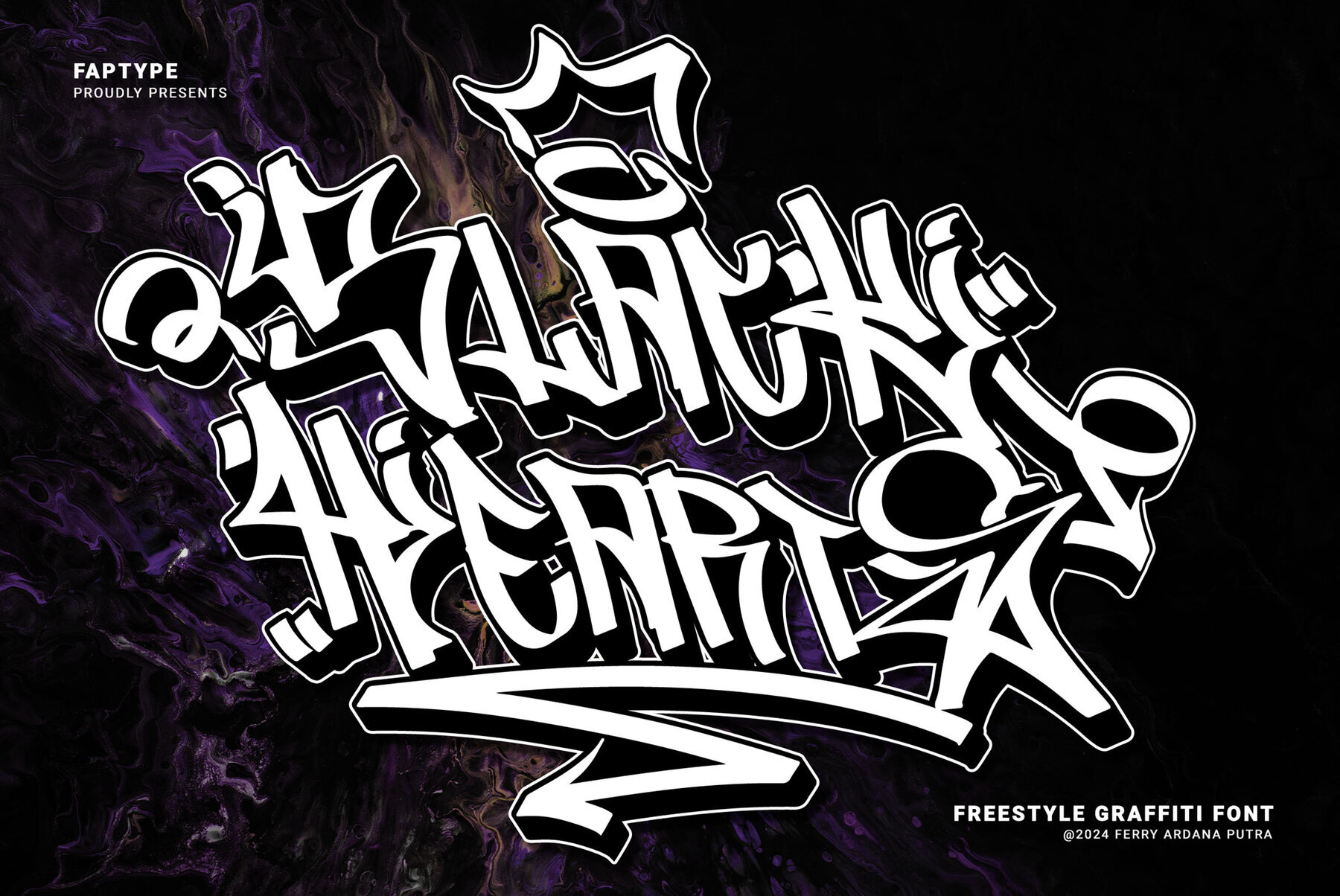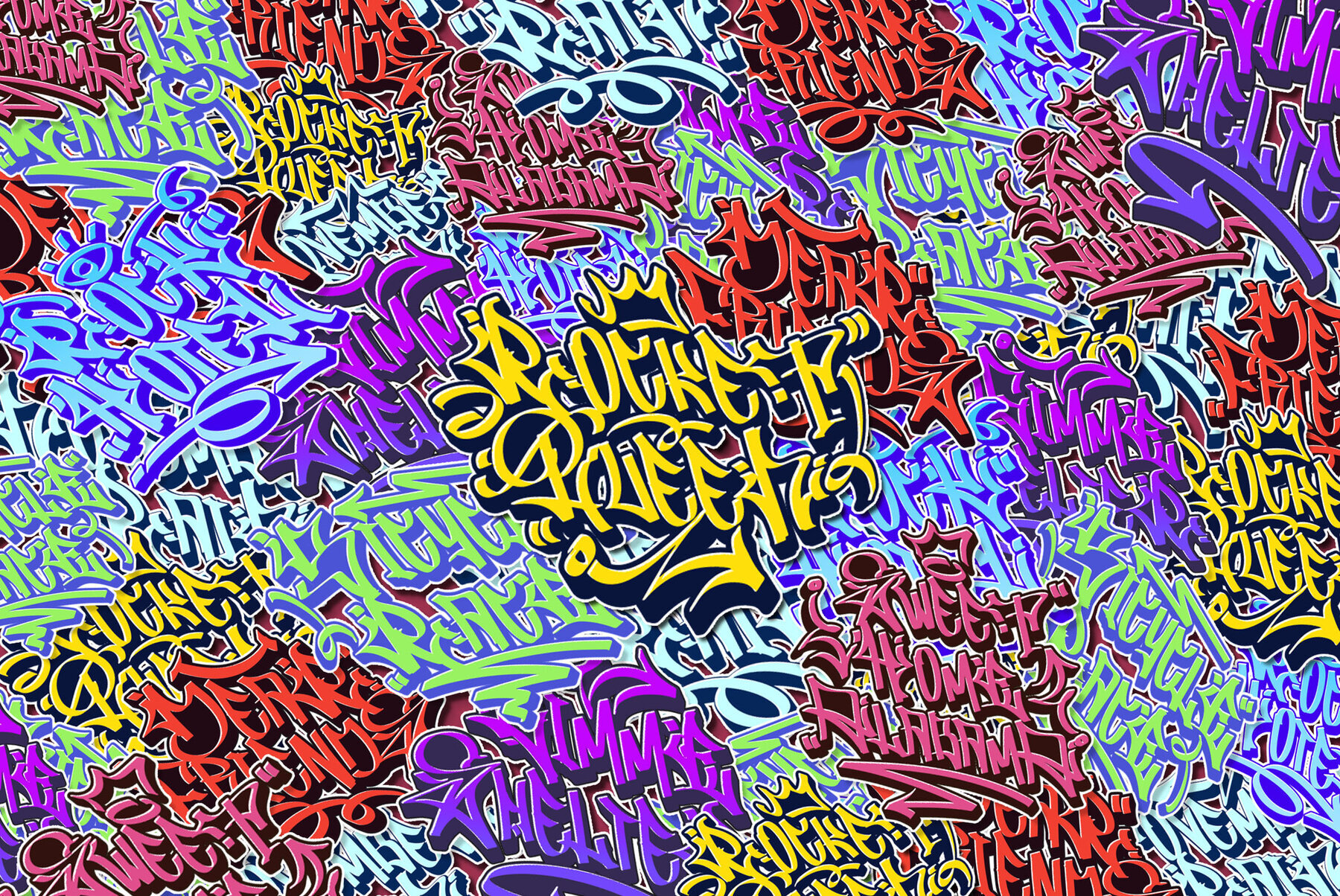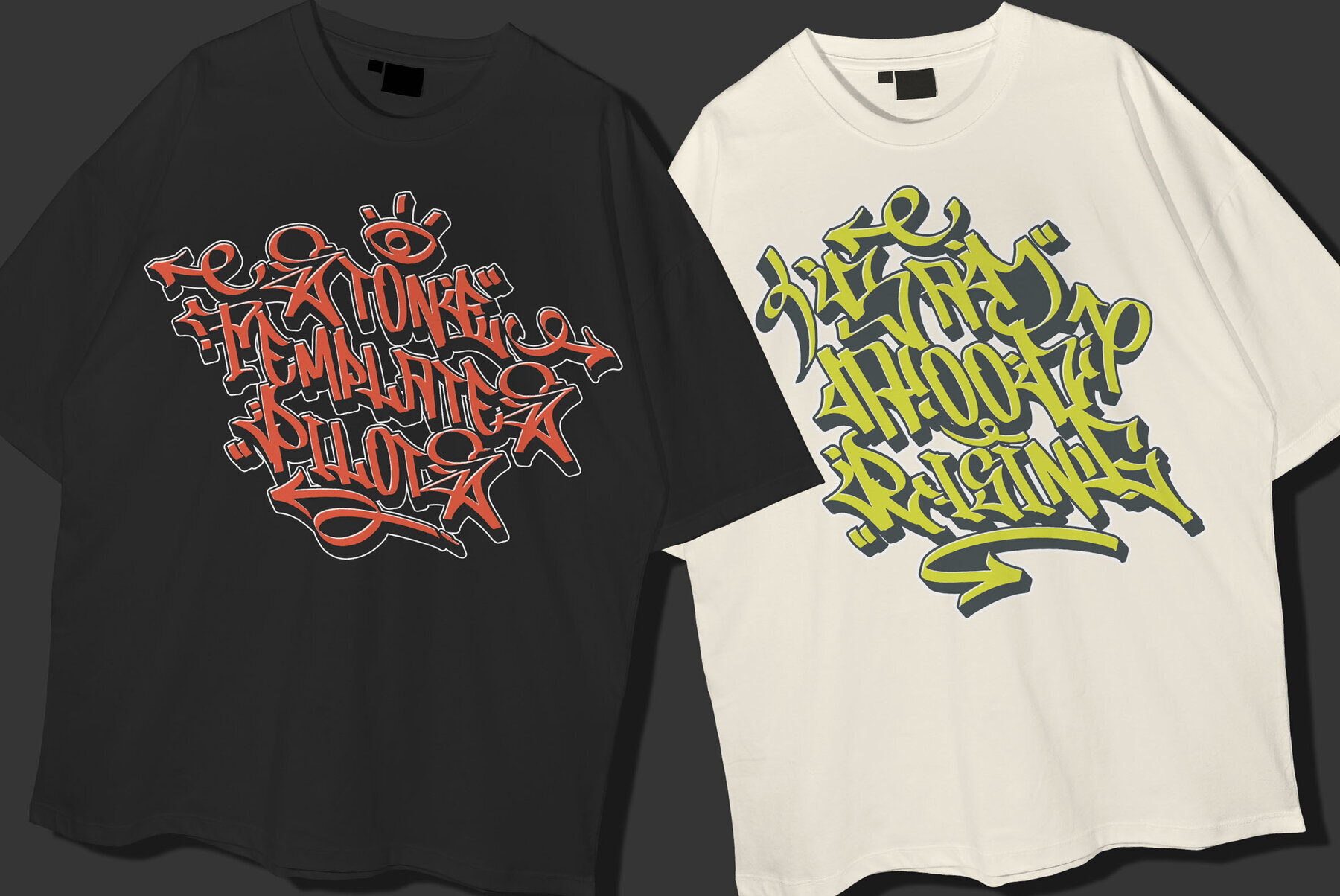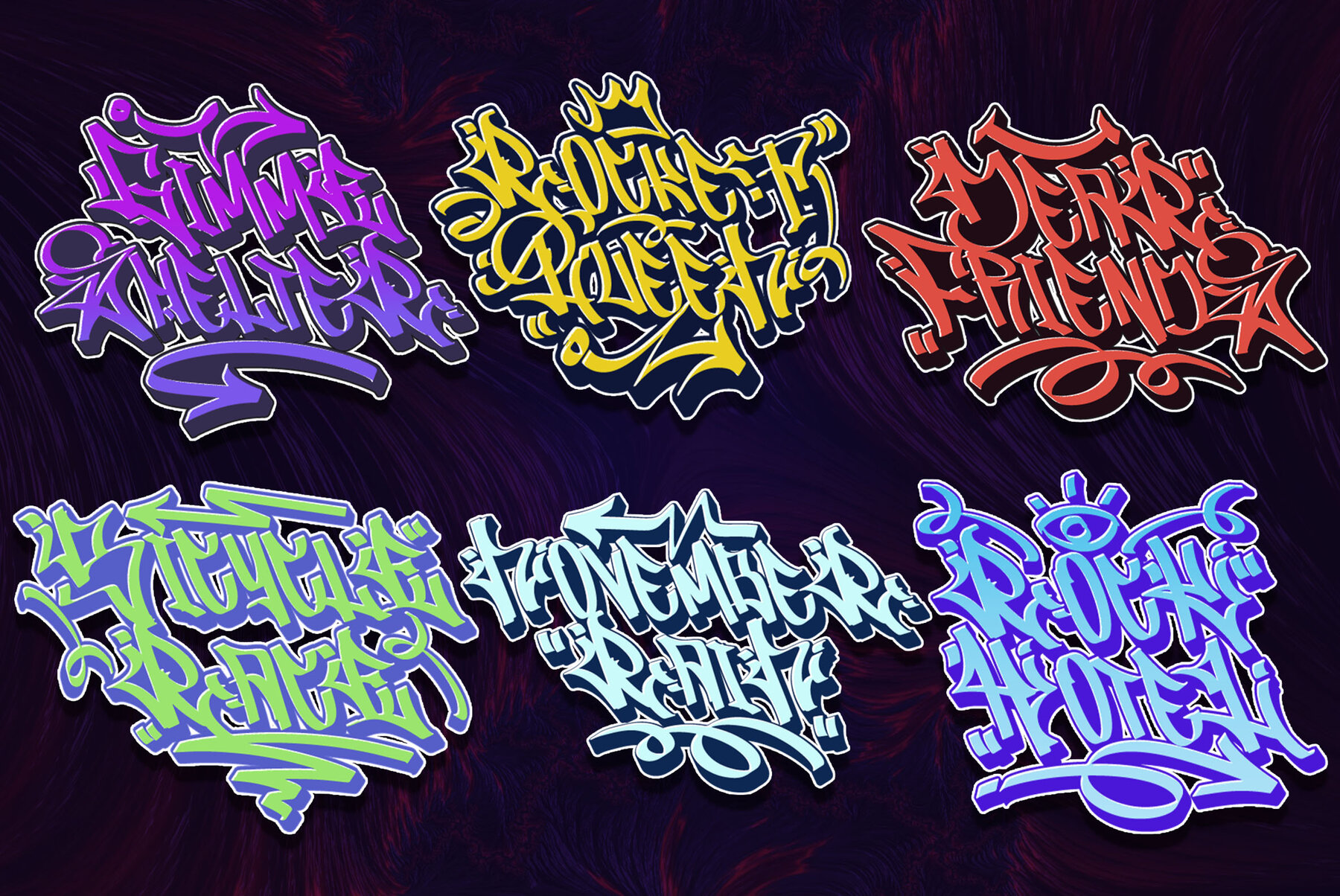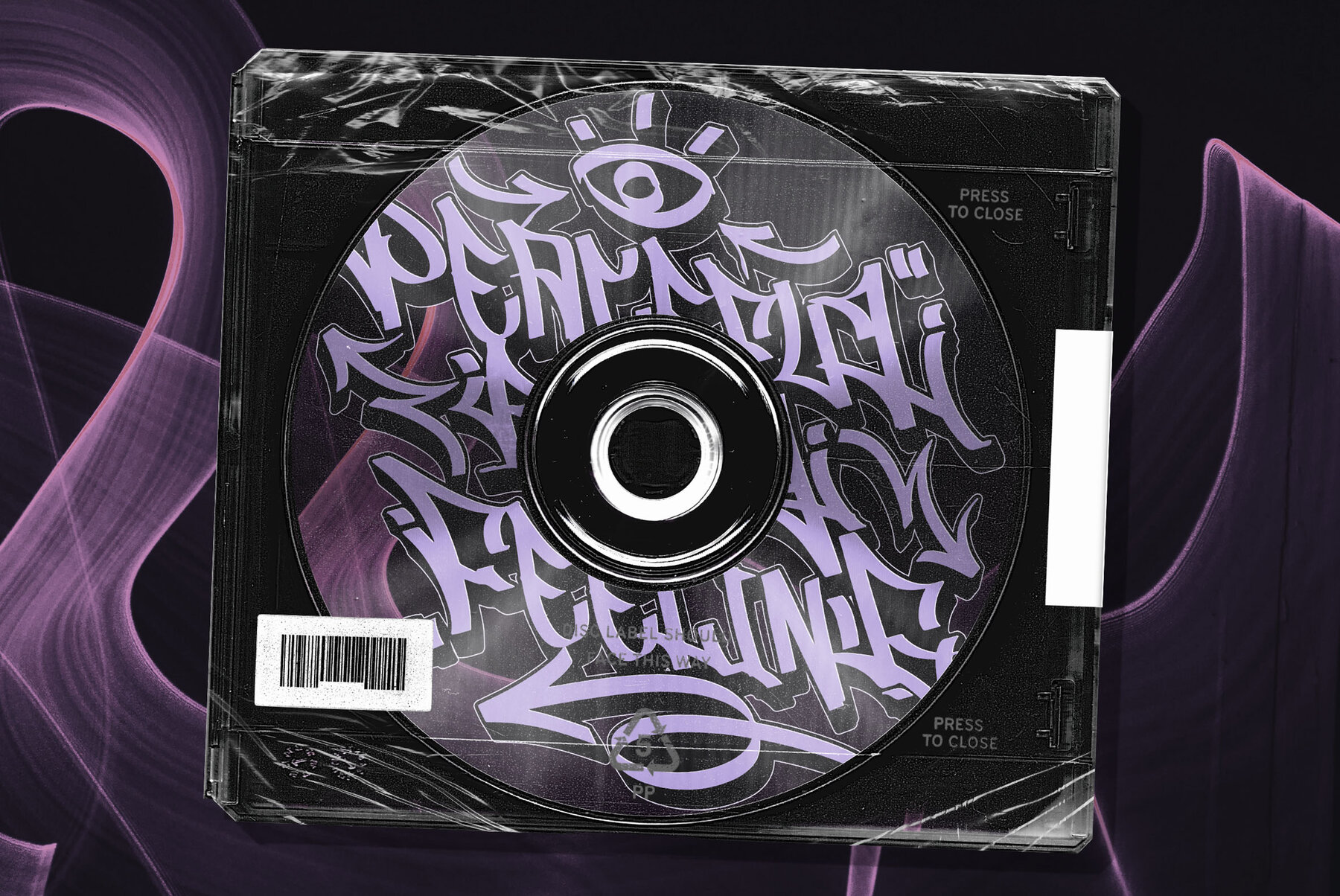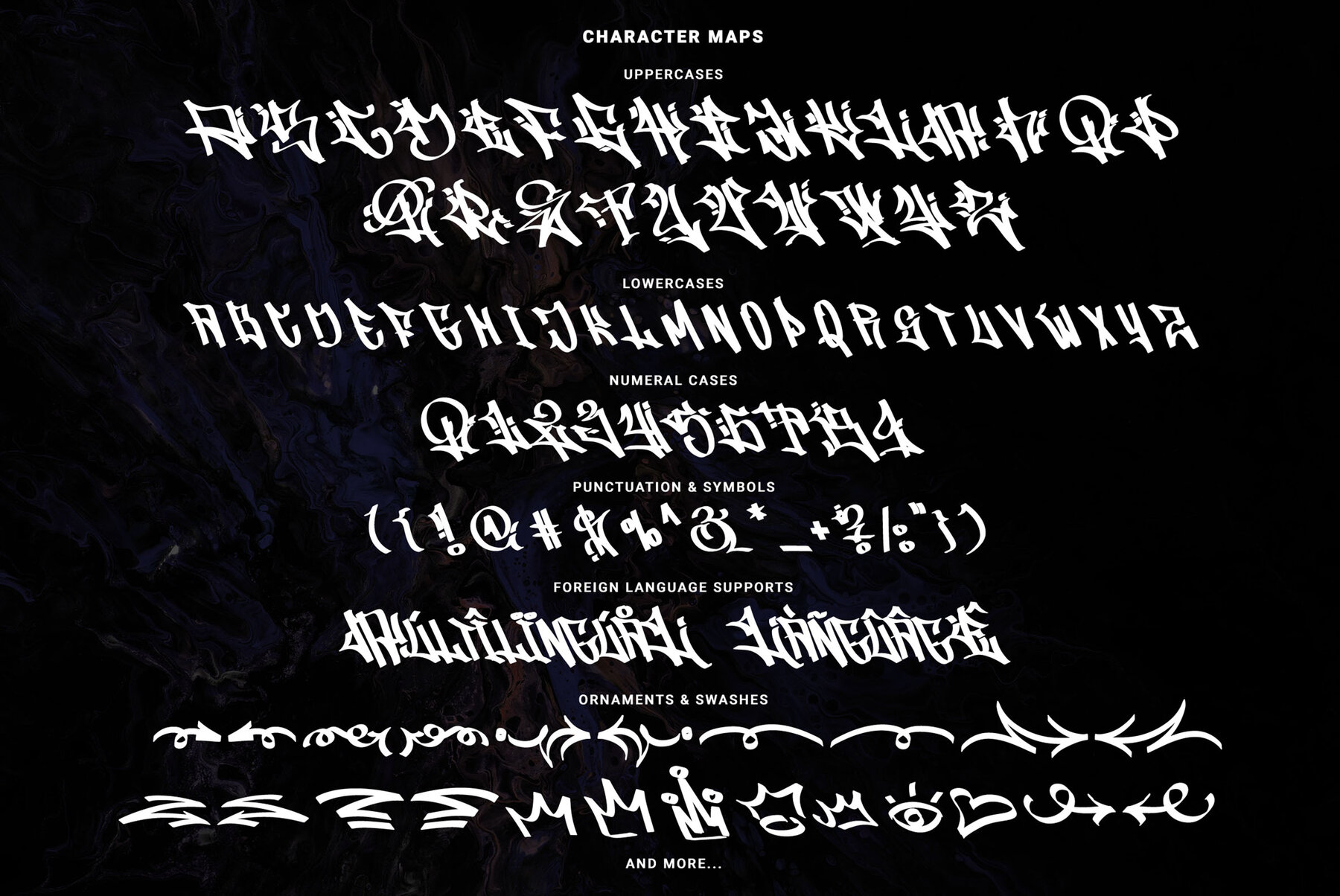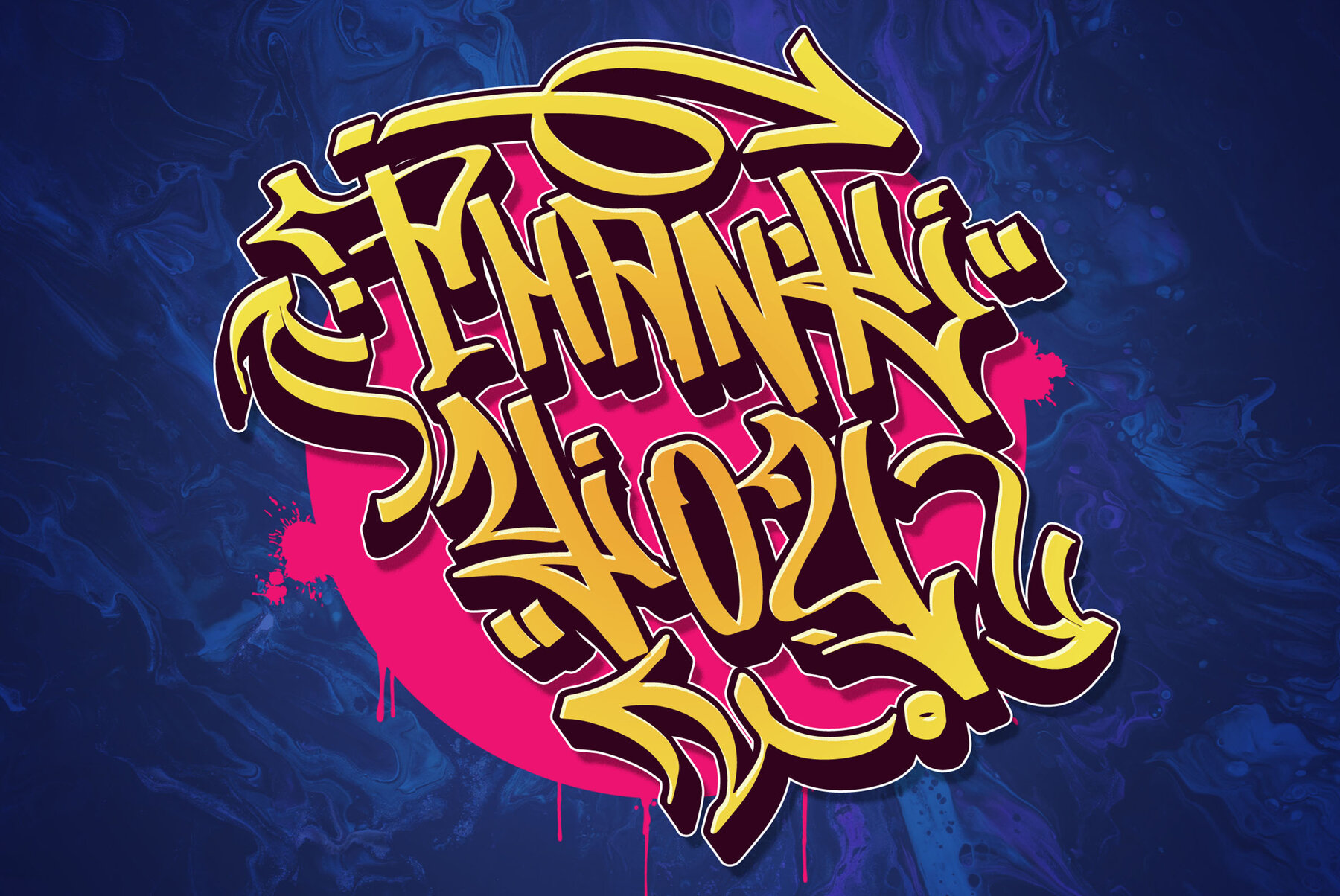
Black Hearts Graffiti Font
Black Hearts
Black Hearts Extruded
Black Hearts Ornaments
"Black Hearts" is a compelling freestyle graffiti font that embodies the rebellious spirit and creative freedom of street art. Designed with bold strokes and dynamic letterforms, this font captures the essence of graffiti culture, delivering an authentic and raw urban feel to your design projects. Crafted in a freestyle manner, "Black Hearts" emulates the spontaneous and expressive nature of graffiti art. Its characters feature a mix of intricate details and bold lines, resulting in a visually striking and edgy aesthetic. Enhance the depth in your designs with the regular and extruded versions of "Black Hearts." This offers flexibility to experiment with typographic dimensions, adding a 3D flair to your compositions. Included graffiti swashes bring additional creativity to your text, complementing the font's style with expressive strokes and energetic curves, perfect for adding a unique touch to your projects. "Black Hearts" includes a range of ornamental elements, from spray-paint-inspired accents to urban motifs, giving your designs an extra dimension of creativity and distinctiveness. Ideal for projects that demand an authentic urban vibe, this font is perfect for street art posters, album covers, clothing designs, or any venture that seeks a rebellious, contemporary feel. "Black Hearts" isn't just a font; it's a statement. Channel the rebellious energy of the streets and infuse your designs with the raw, unapologetic style of urban graffiti culture. Let your creativity run wild and make a bold impact with "Black Hearts."Black Hearts Graffiti: Freestyle Font with Urban Edge
Freestyle Graffiti Design
Regular and Extruded Versions
Graffiti Swashes
Ornamental Elements